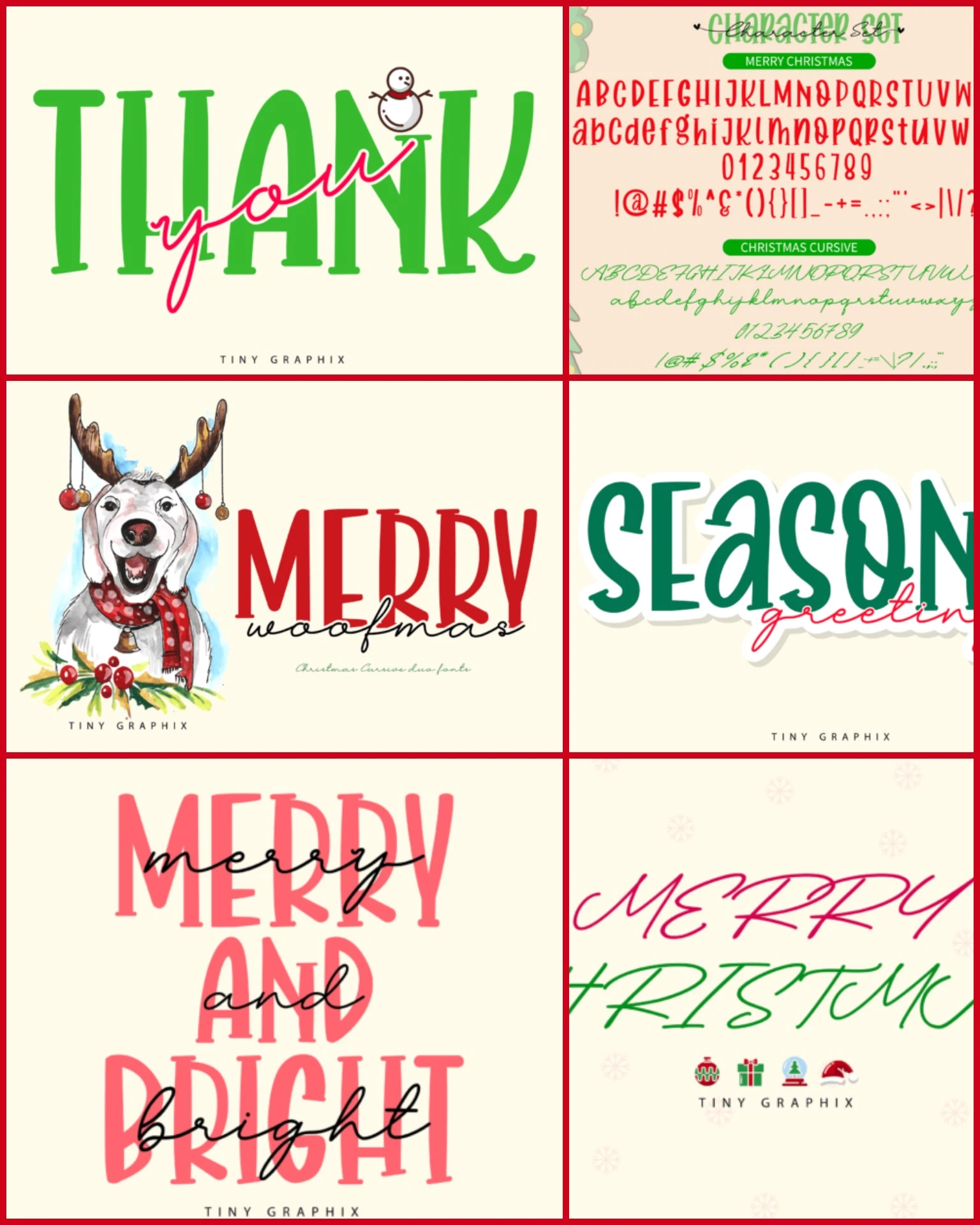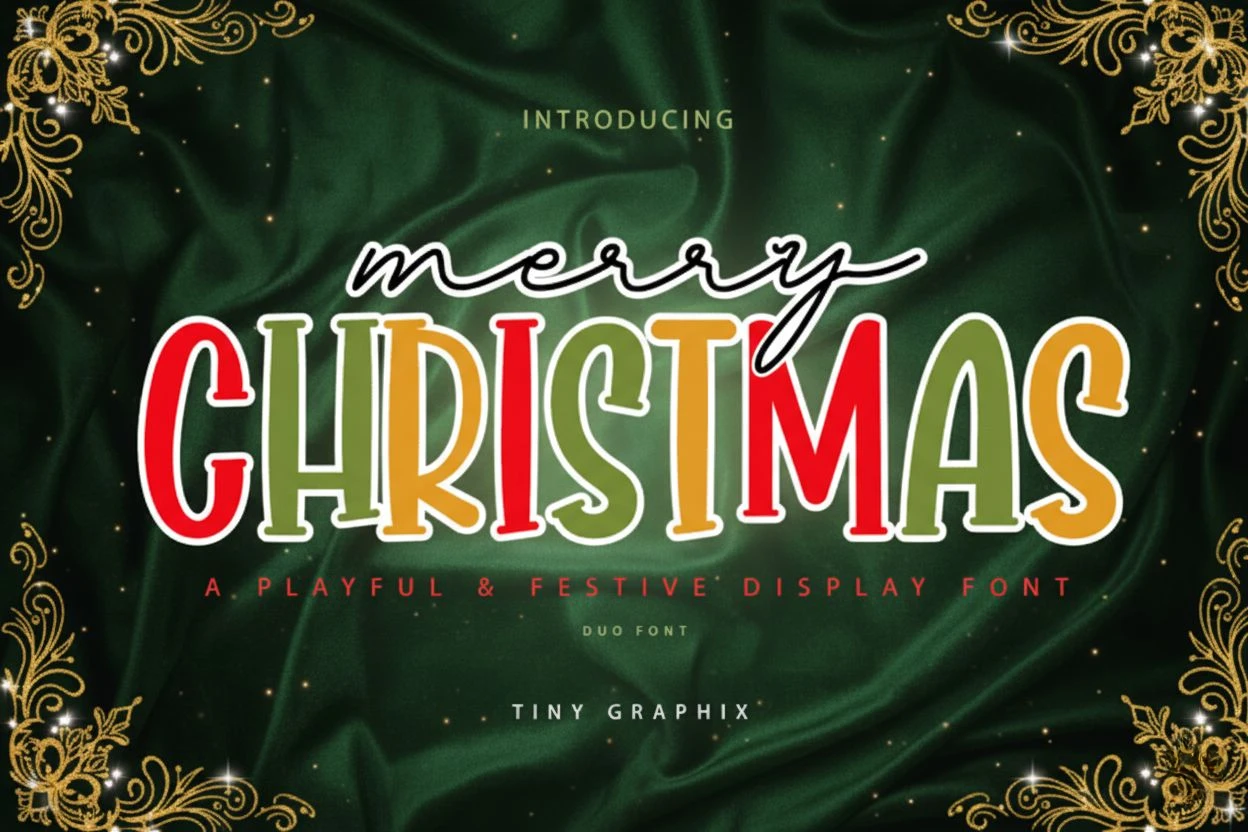
Merry Christmas Duo Font is a festive and playful two-style typeface designed to bring holiday magic to all your creative projects. This Christmas font duo includes both a bold Christmas Display Font and
an elegant Christmas Script, giving you the perfect combination of fun and warmth for seasonal designs.
The cheerful display style adds joy and energy to Christmas cards, gift tags, posters, sublimation designs, T-shirts, mugs, ornaments, and crafts, while the smooth handwritten script brings a personal, heartfelt touch. Together, they create a versatile year-round font duo ideal for holiday designs, weddings, Mother’s Day gifts, Halloween themes, Easter projects, Fall crafts, beauty branding, and social media graphics.